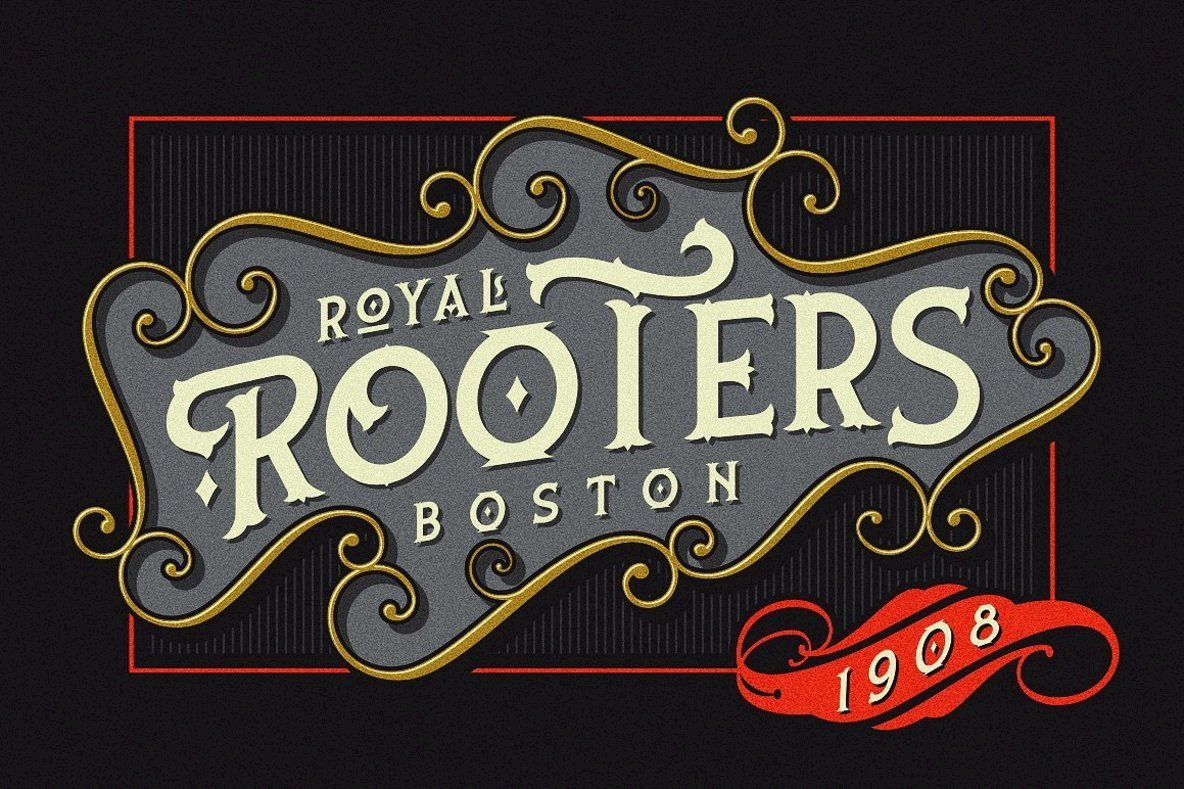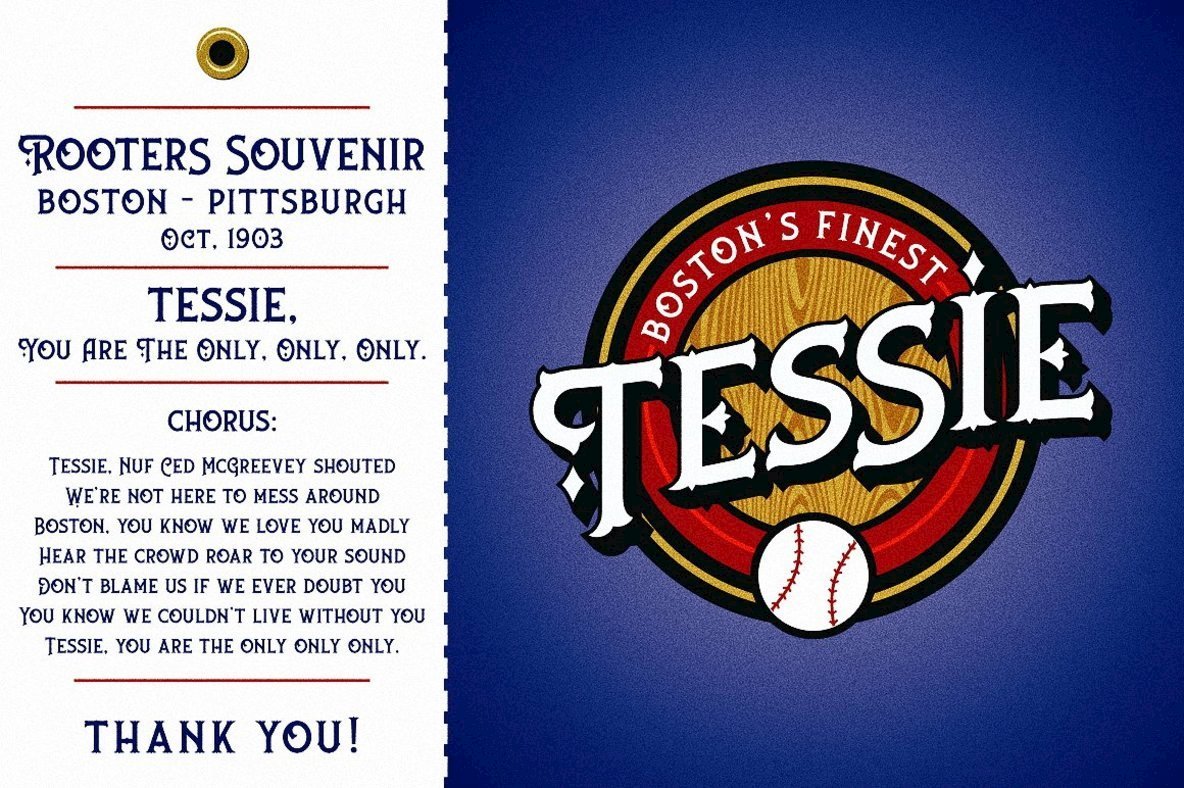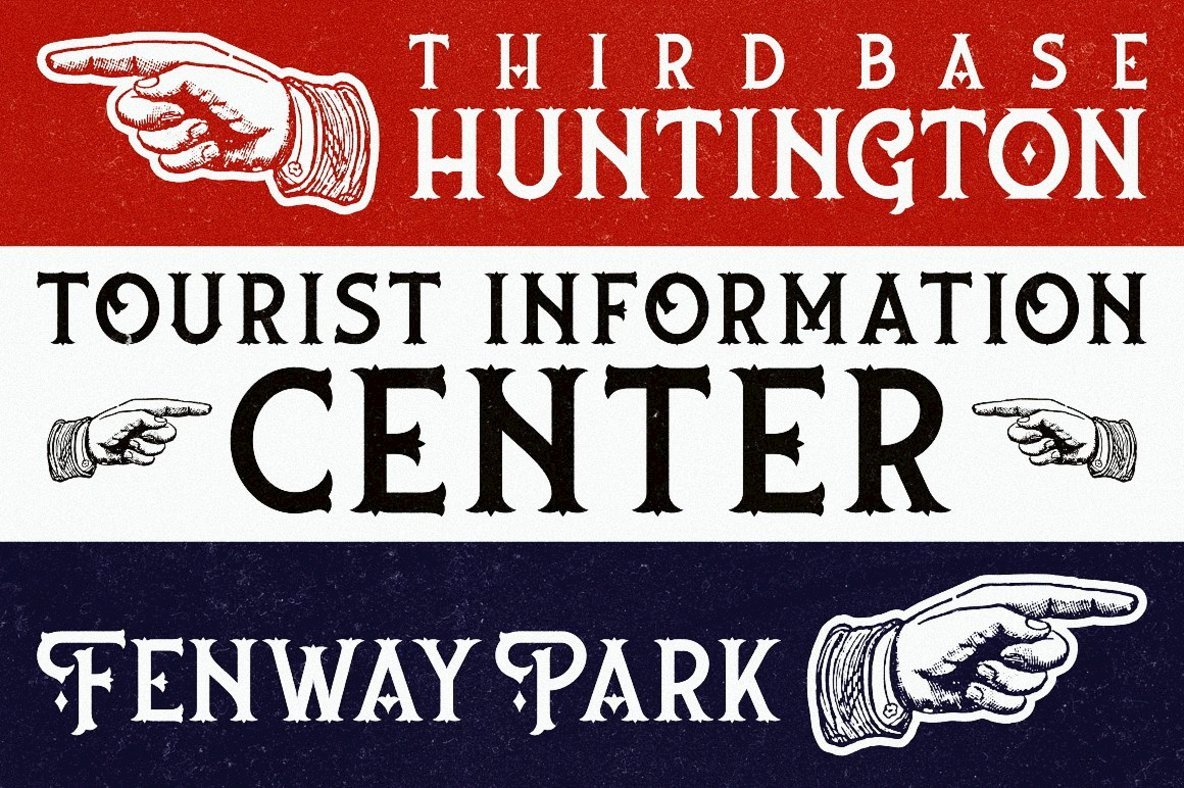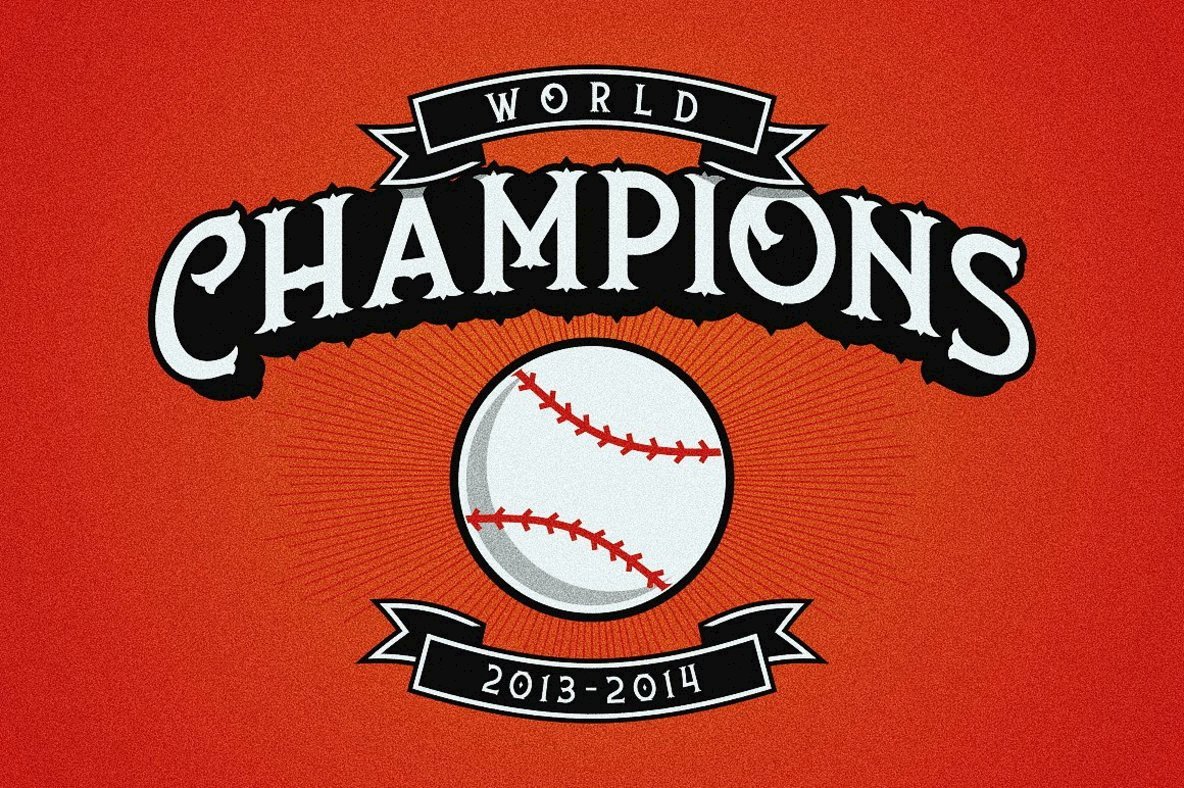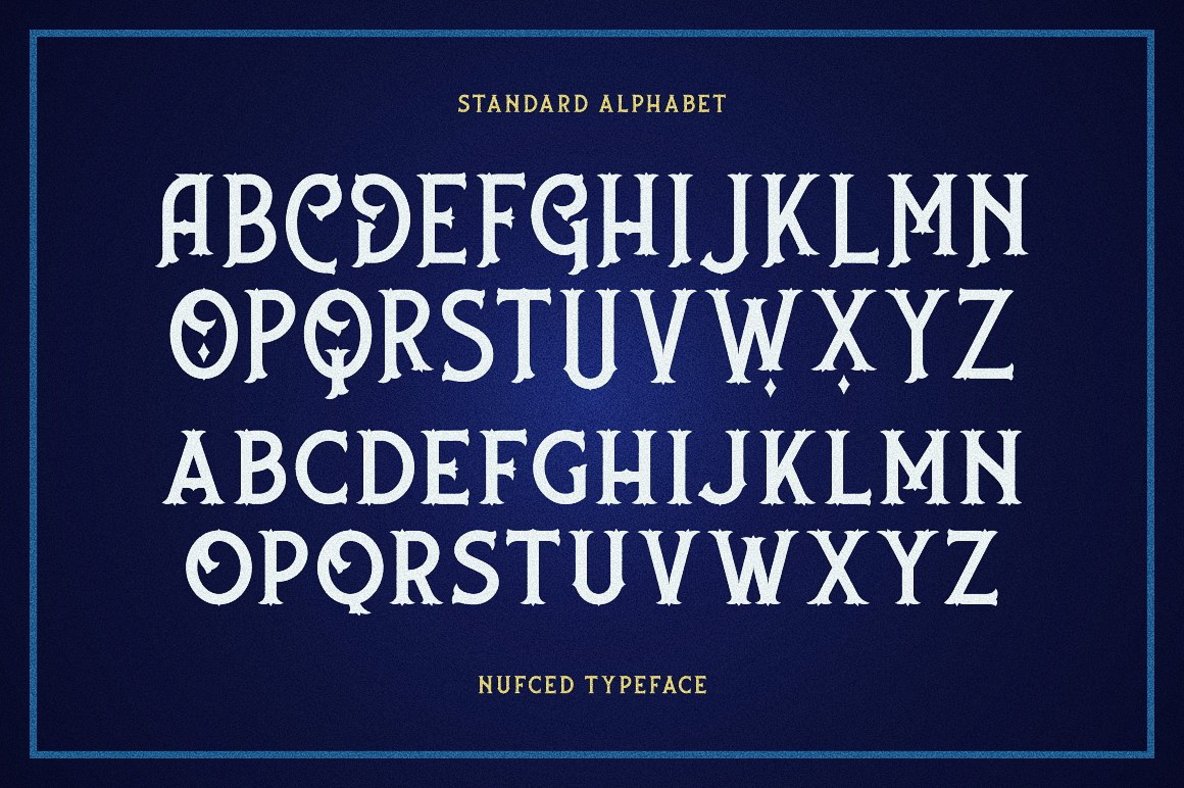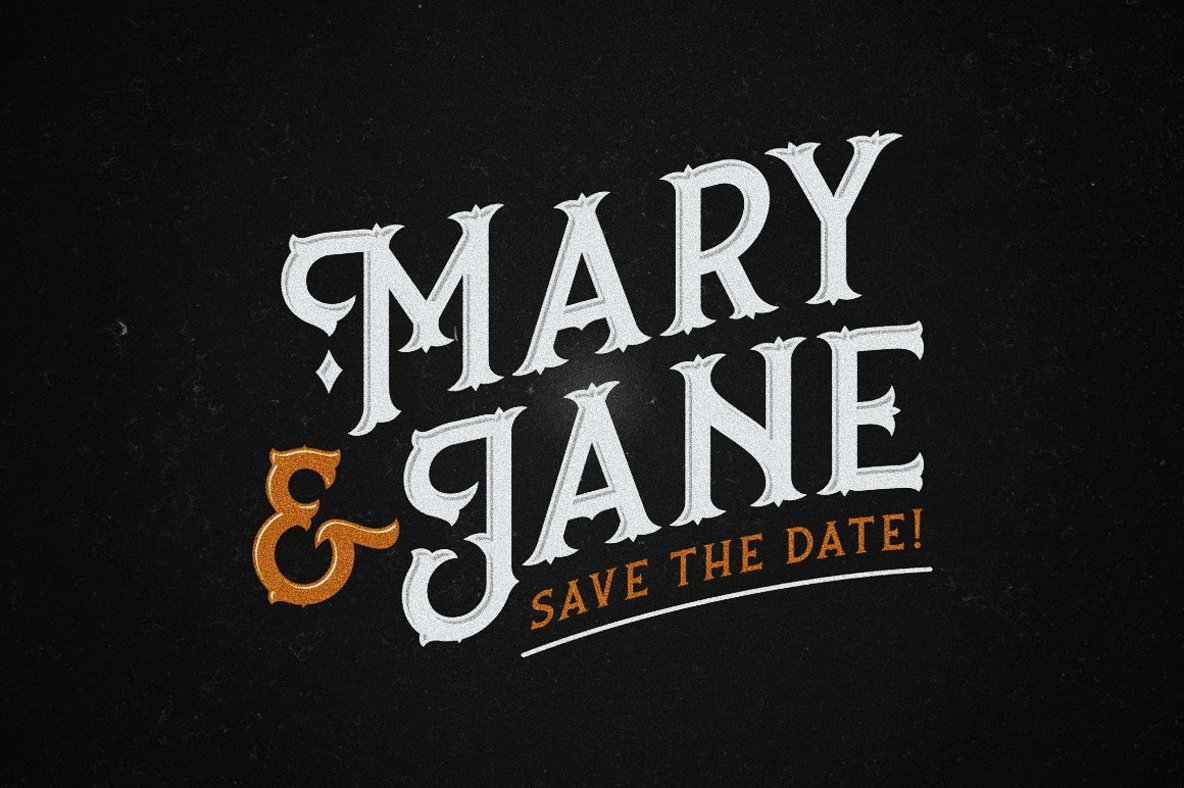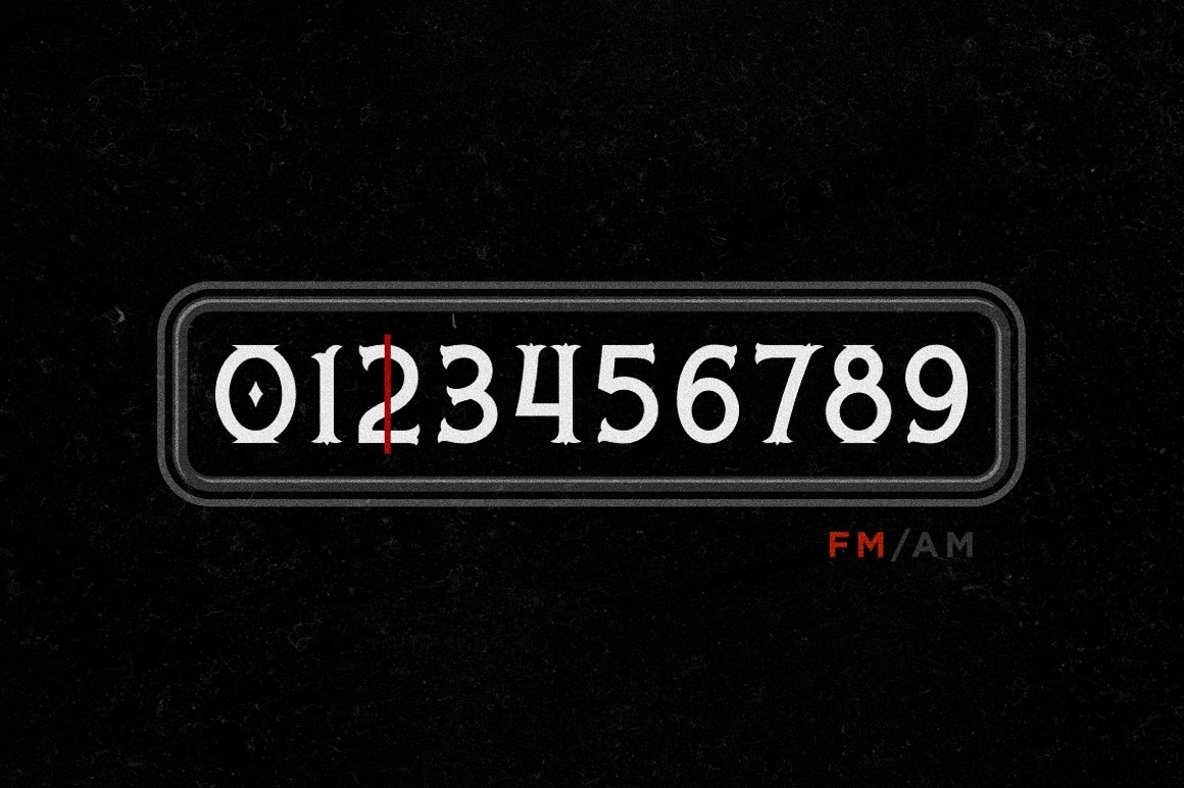
Nufced Typeface Font
Nufced
Nufced brings a unique flair to typefaces with an all-caps style that stands out, inspired by classic American advertisements. This serif font merges the sporty with the vintage, delivering both strength and flexibility—perfect for projects with sports or retro themes.Nufced Typeface: Sporty Vintage Serif